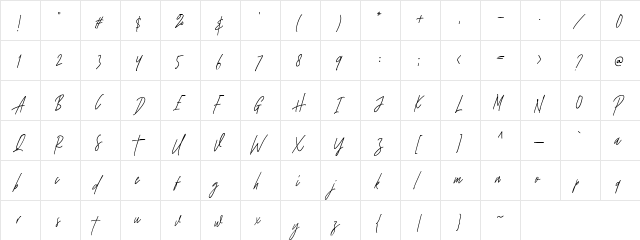
Strong Heart Script Regular
| Foundry | Sarid Ezra |
| Designer | Sarid Ezra |
Design Context for Strong Heart Script Typeface
Strong Heart Script brings a calligraphic fluidity to the page — its connecting strokes and expressive curves give it an unmistakably human quality.